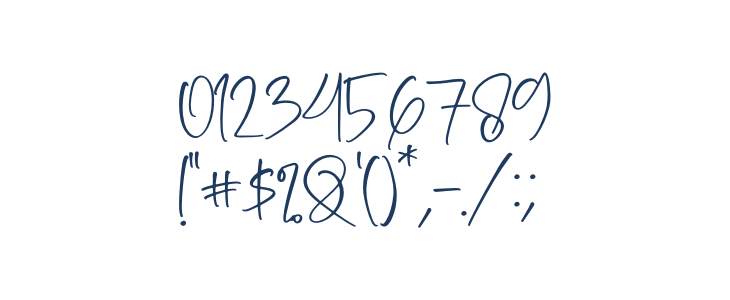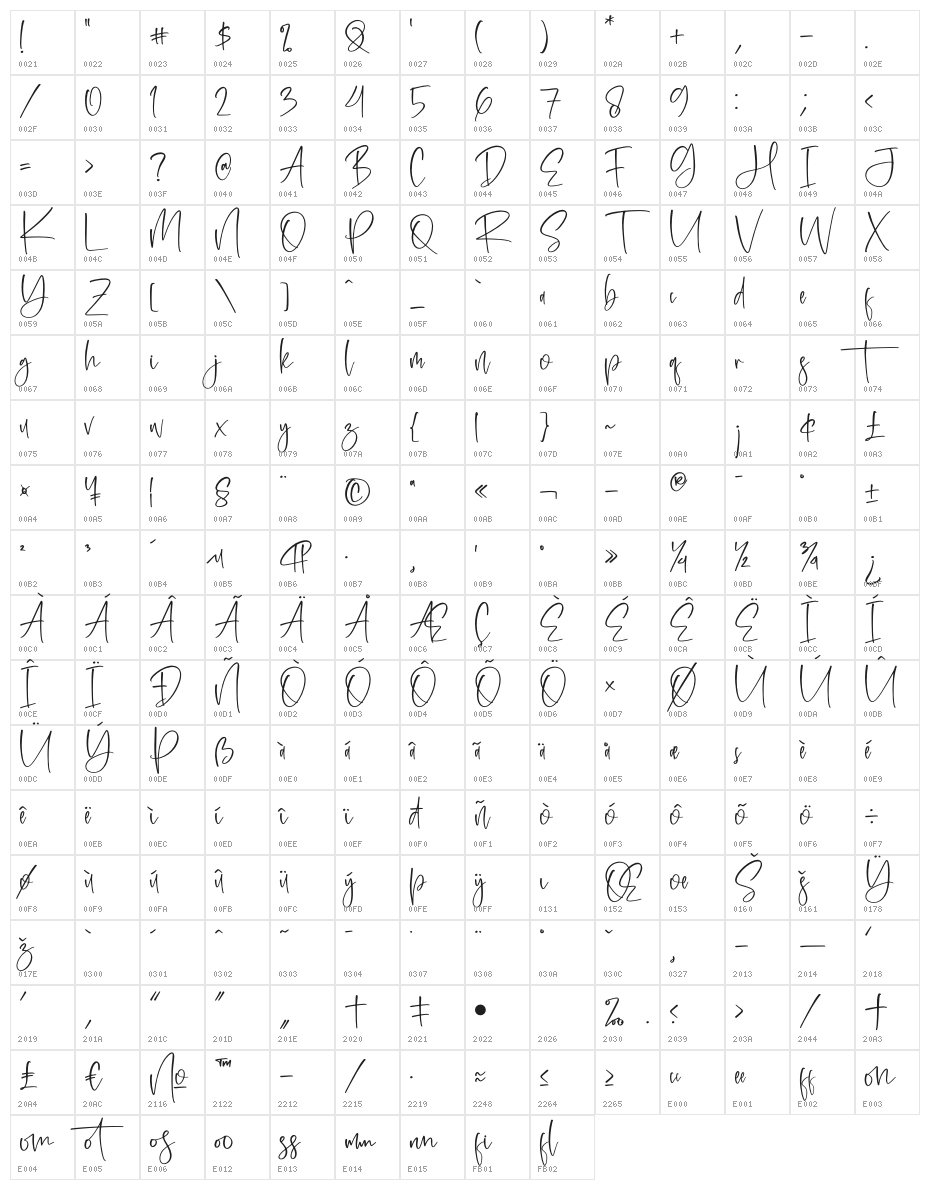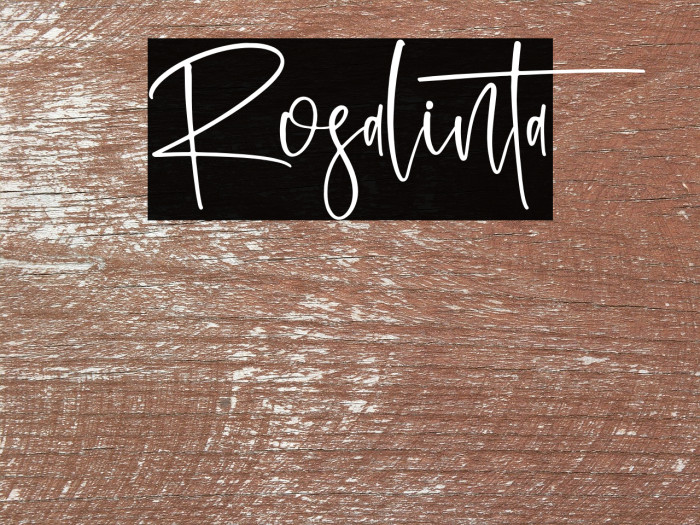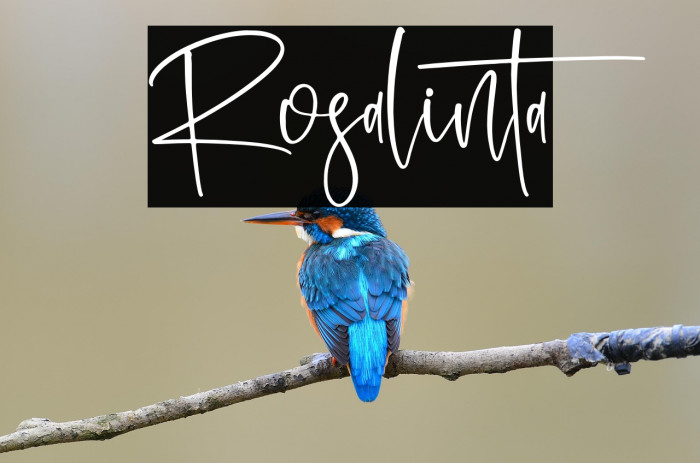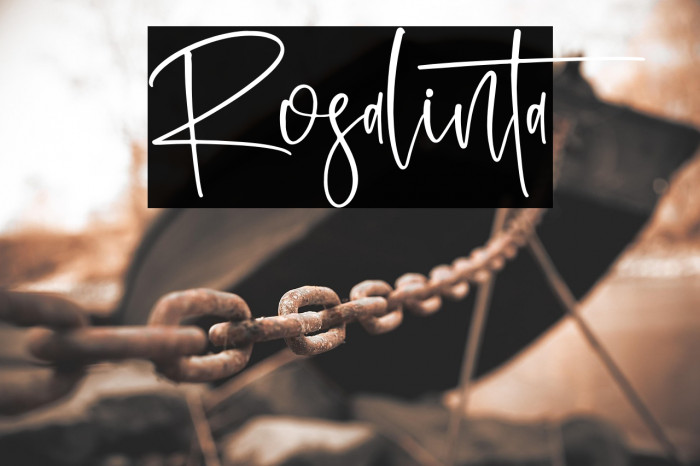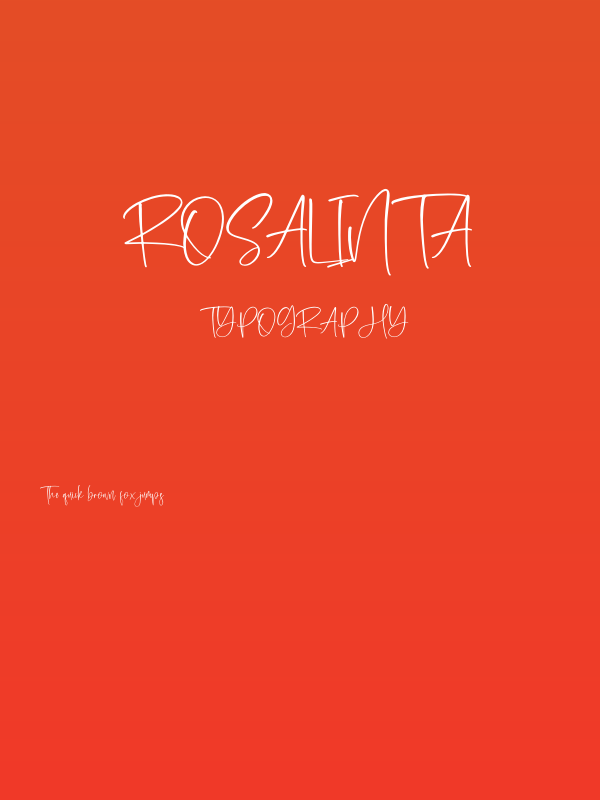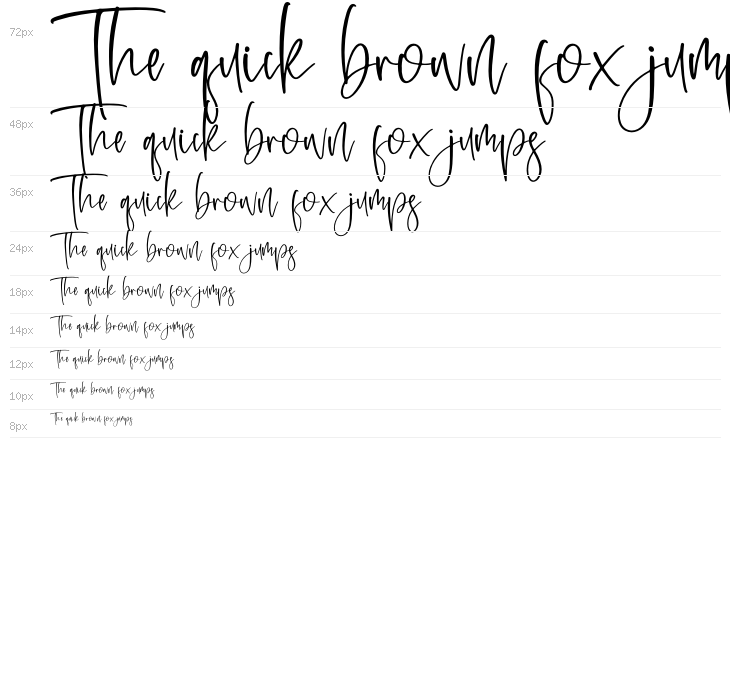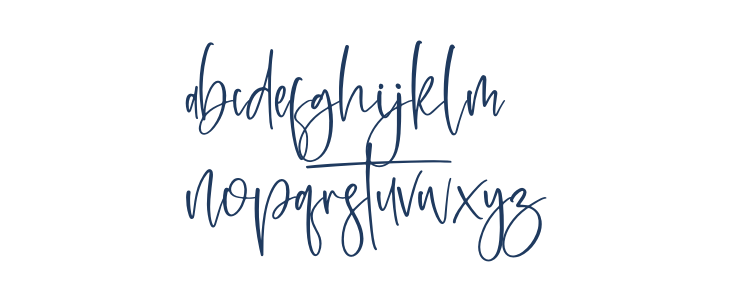
Rosalinta Font
Rosalinta Description
This font features a lively and dynamic handwritten style, characterized by its fluid and flowing letterforms. The uppercase letters exhibit a playful yet elegant appearance, with varying stroke widths that add a sense of movement and energy. The lowercase letters maintain a consistent style, complementing the uppercase with their smooth curves and loops. Numbers and special characters are crafted with the same attention to detail, ensuring a cohesive look across all elements. The overall design exudes a modern and artistic flair, making it suitable for creative and expressive projects.
Use CaseLogos, Headlines, Invitations
Proposed ProjectsIdeal for creative projects such as invitations, greeting cards, branding, and social media graphics.